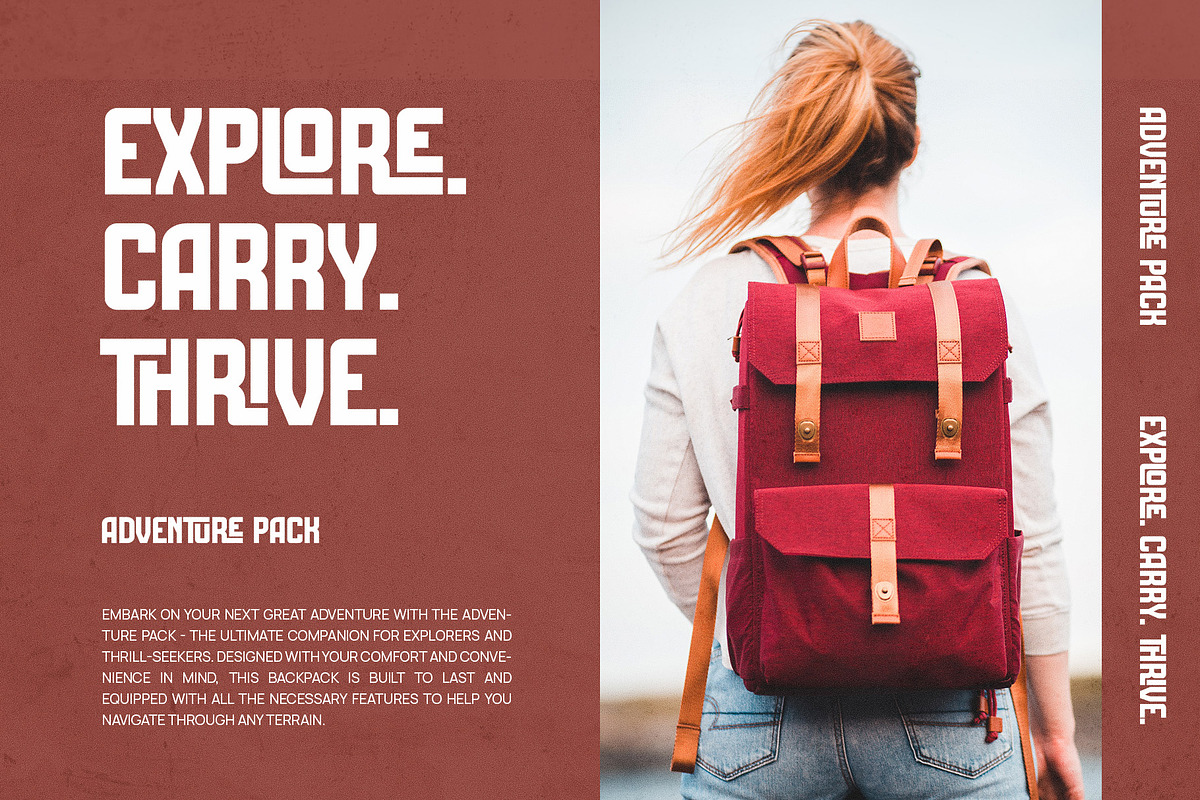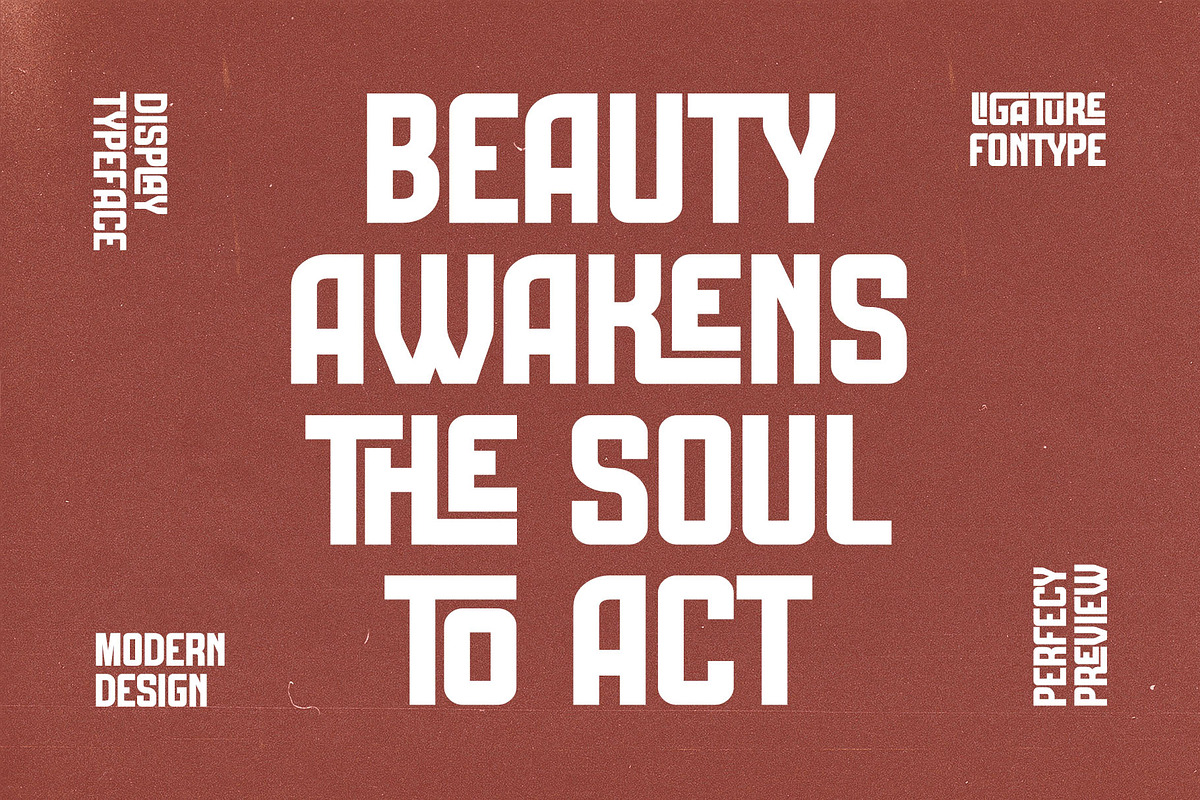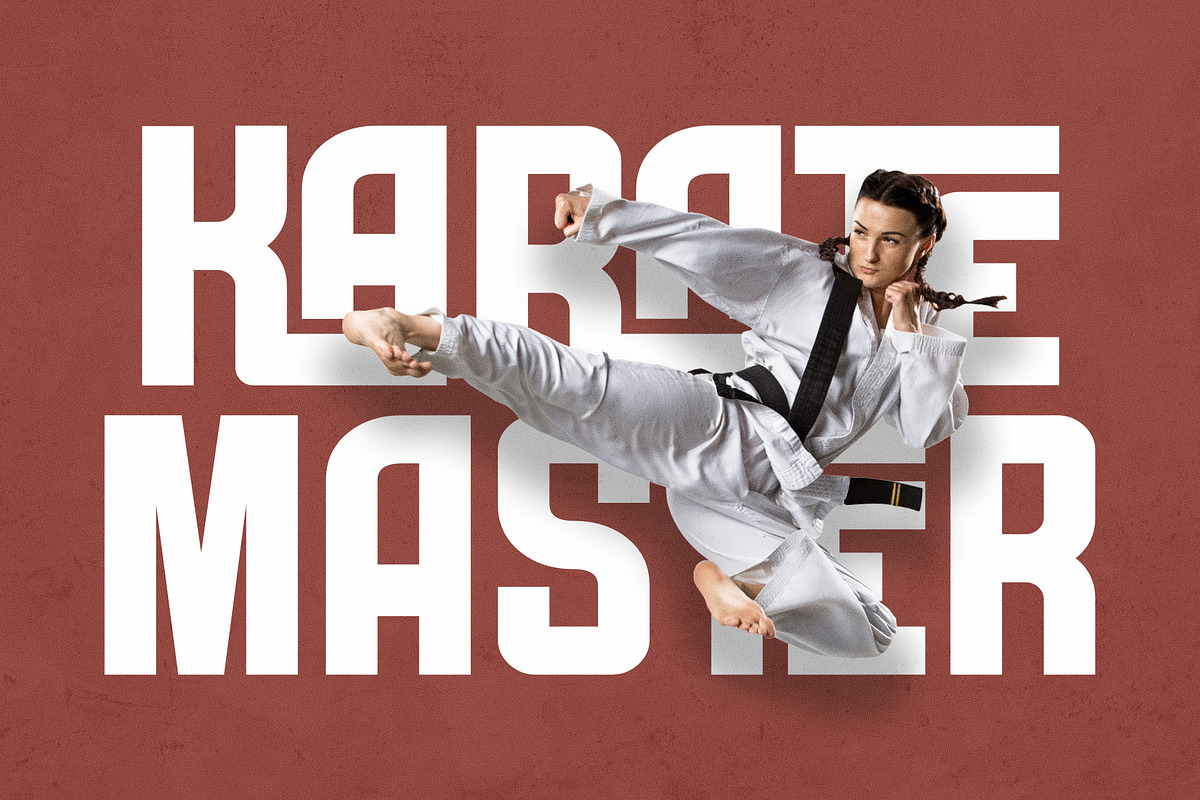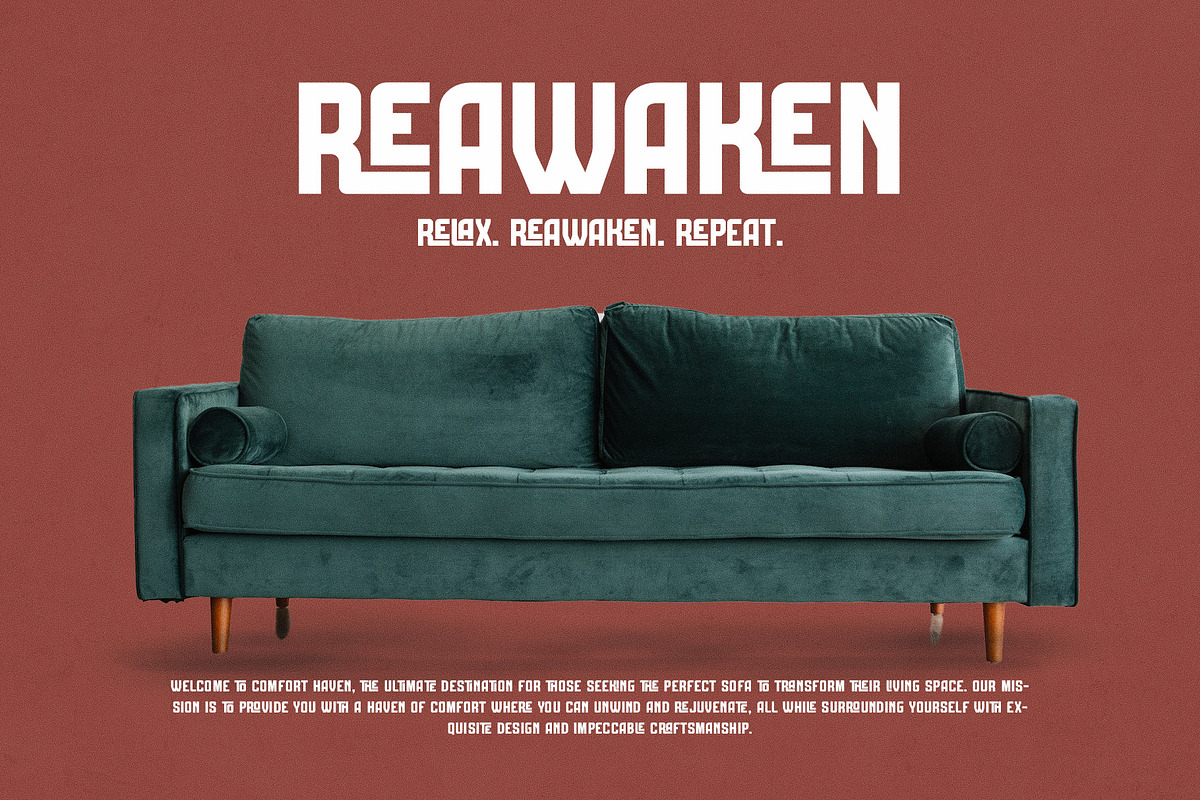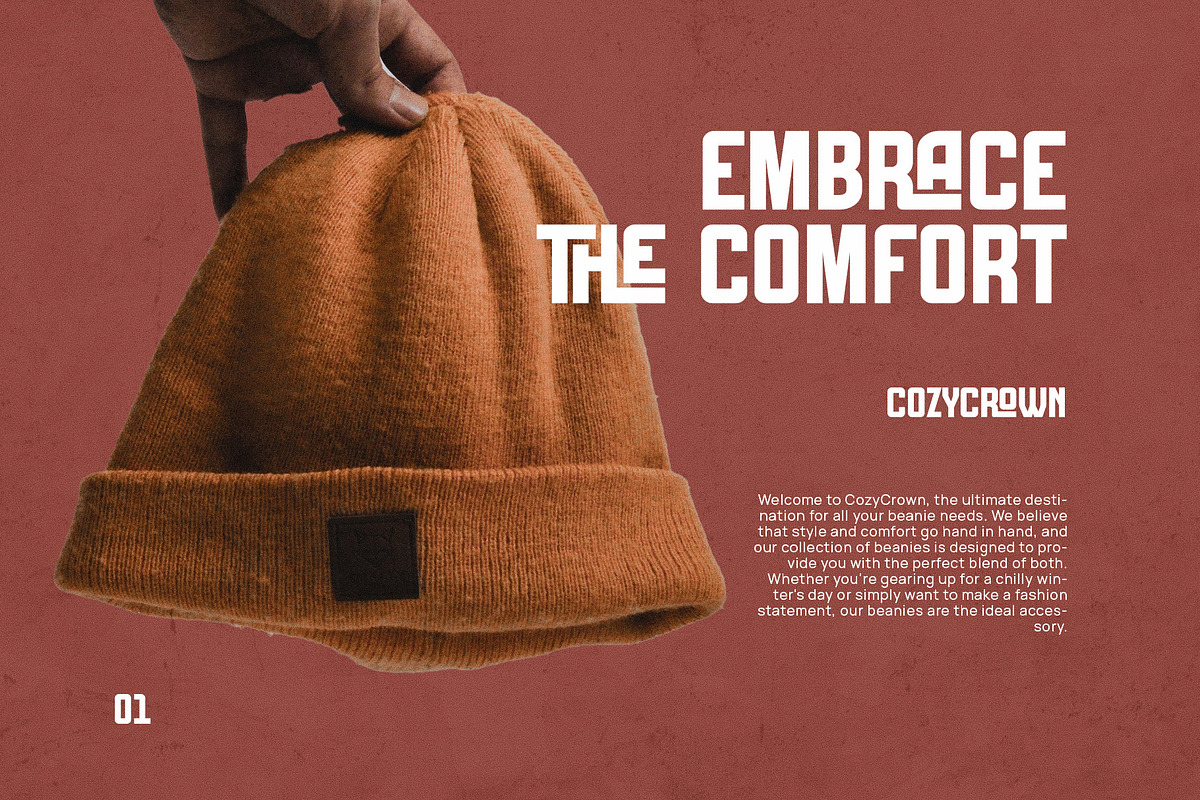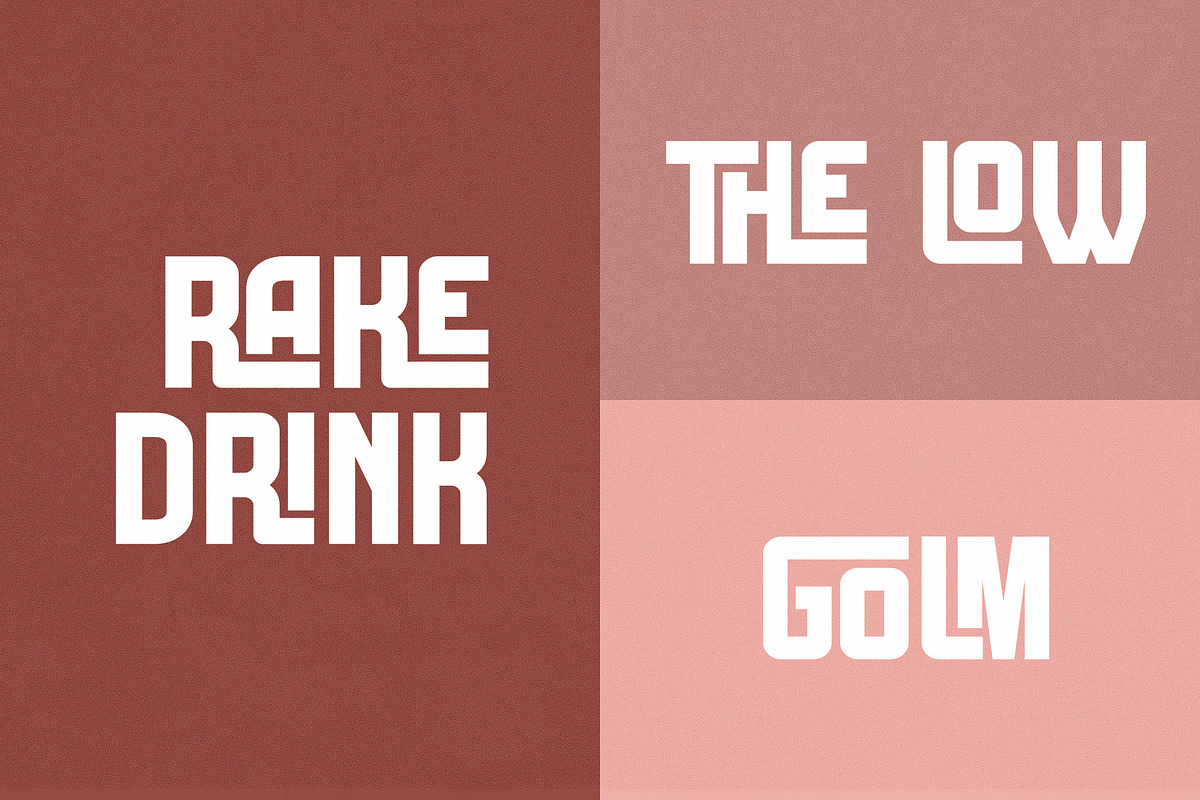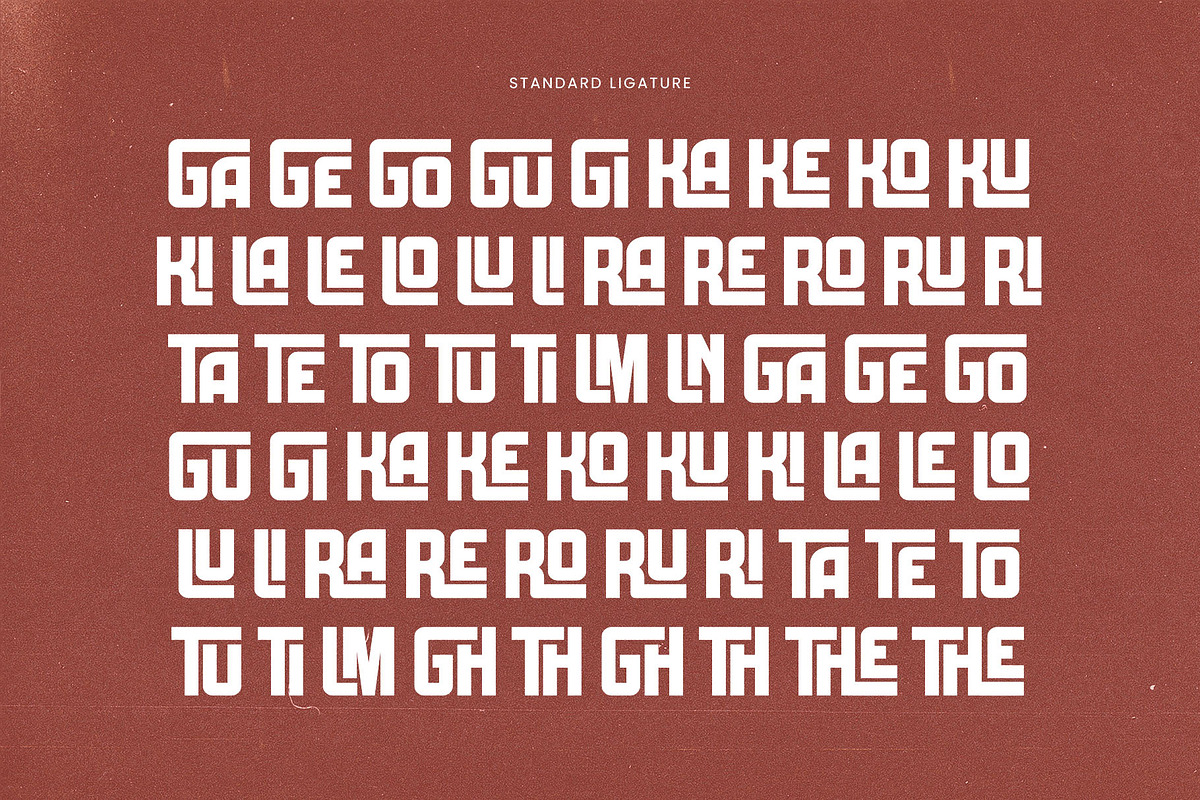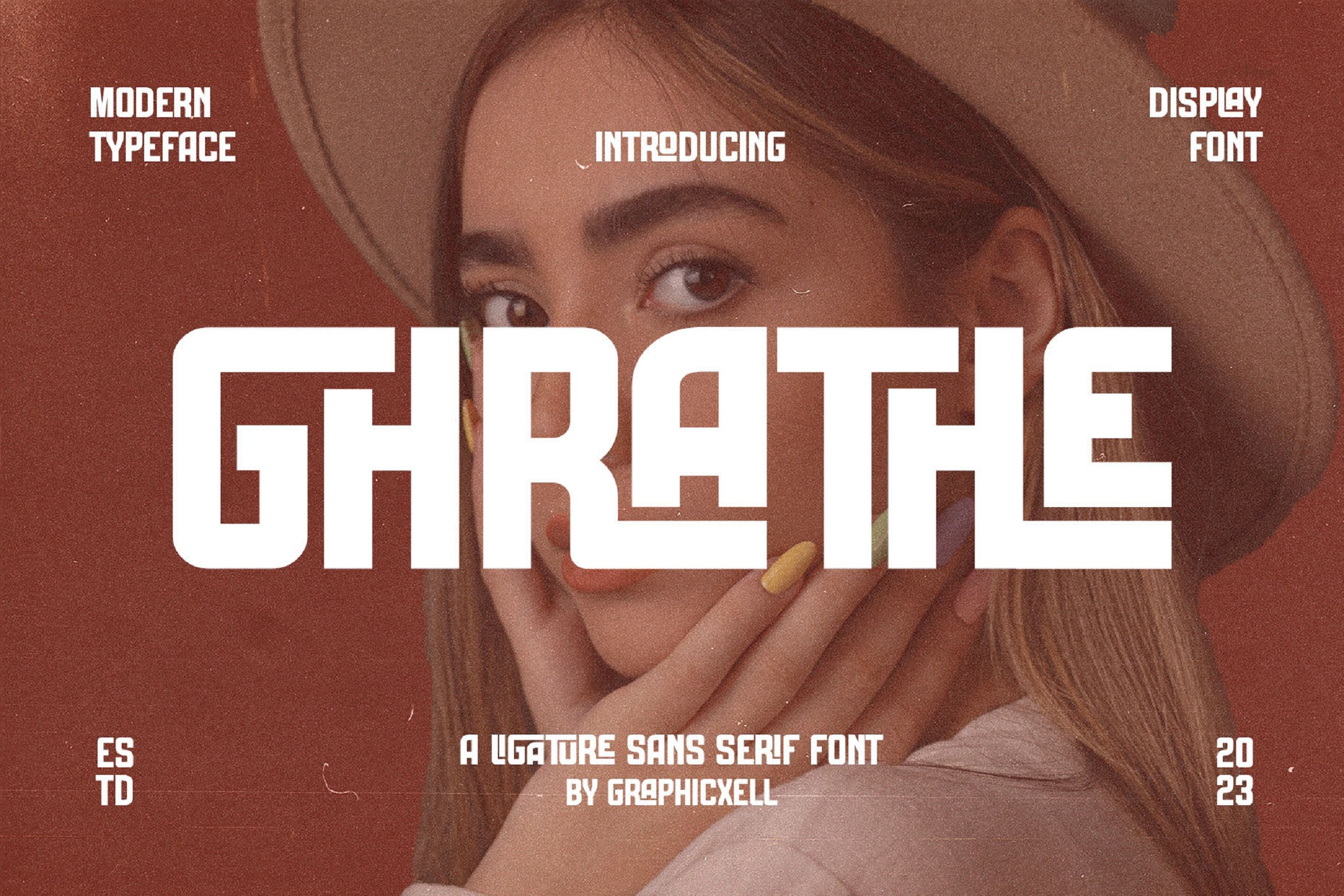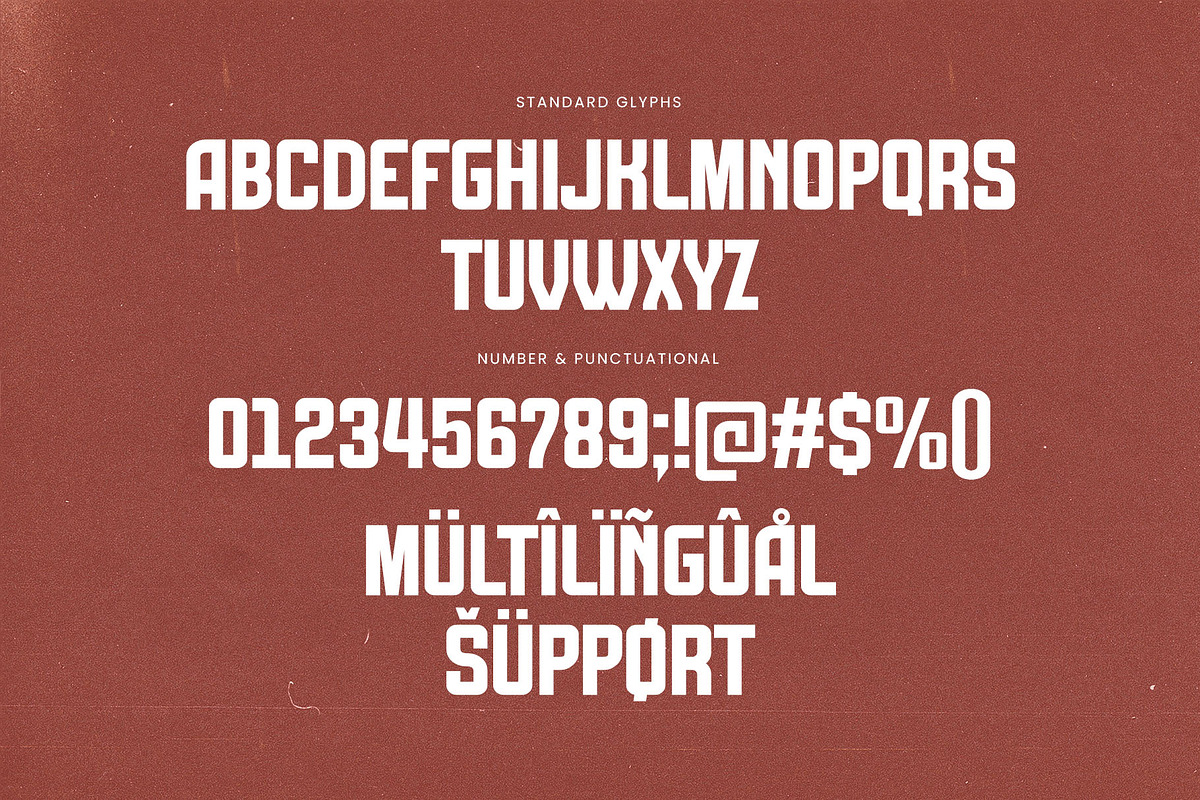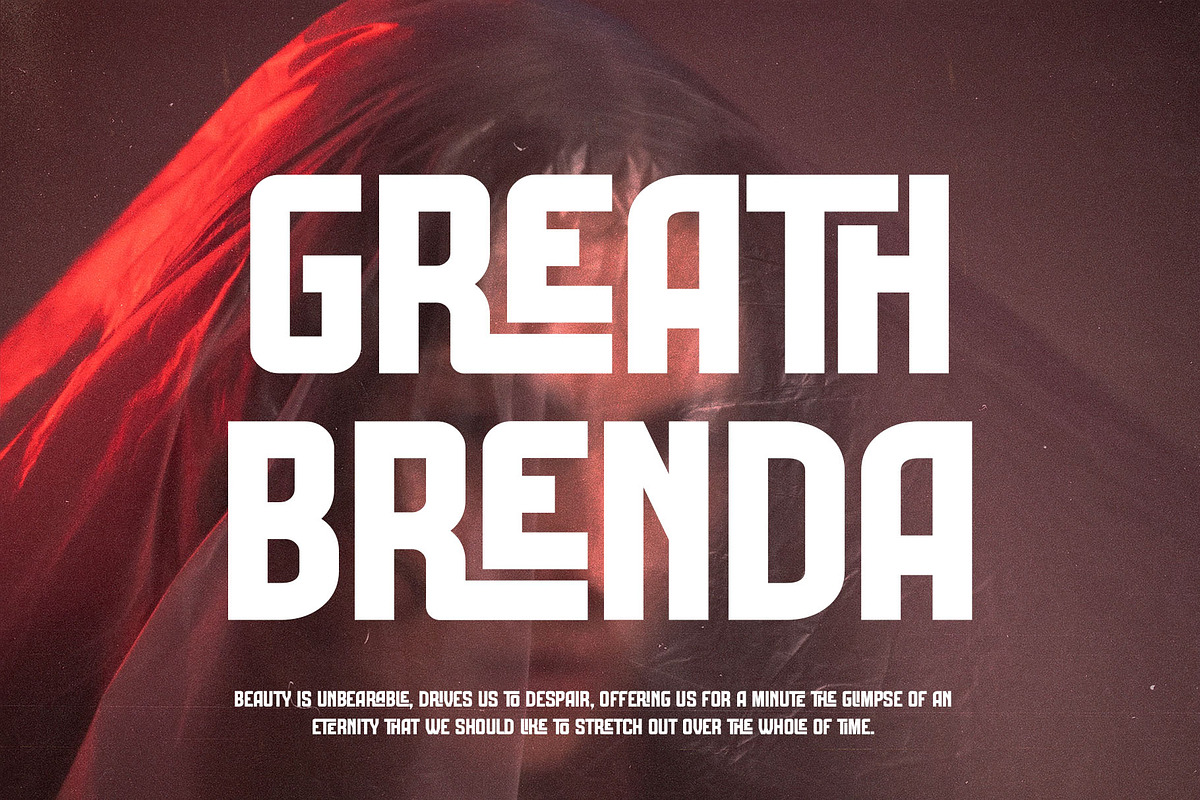
Ghrathe Ligature Sans Serif Font
Ghrathe Ligature Sans Serif Font comes as a new modern typeface. Designed as a display font, it puts emphasis on the thick letterform. One of the main characteristics of this font is the curved line in a square shape, creating a firm and brave impression. Besides that, this sans serif font also comes with a subtle difference in contrast. In addition, the shape approaches the emphasis towards vertical lines. What makes it impressive is that the font is solid and firm. What’s more, the Ghrathe Ligature Sans Serif Font is more modern and functional. Because of that, it tends to be more suitable for digital designs such as posters, websites, and displays on electronic devices. The way how it combines the letters is very unique, making it look not boring and much more interesting. If you want to impress your clients through your design, there’s no harm in trying this new sans-serif font.